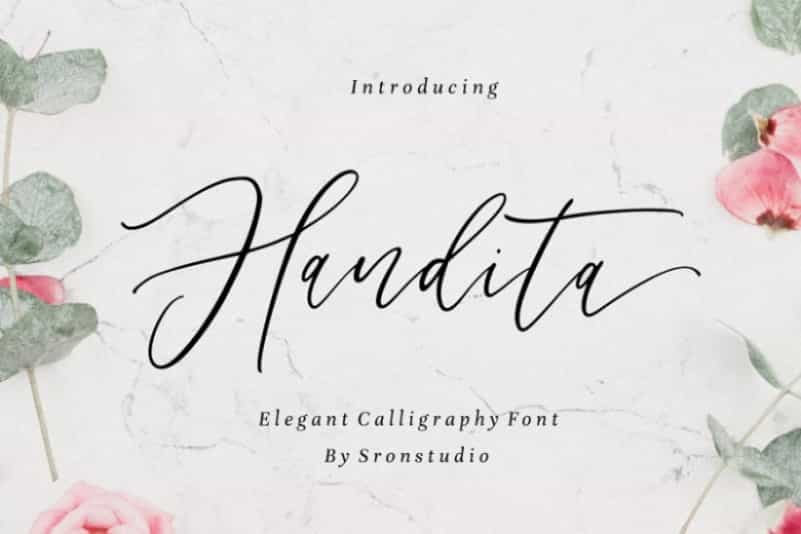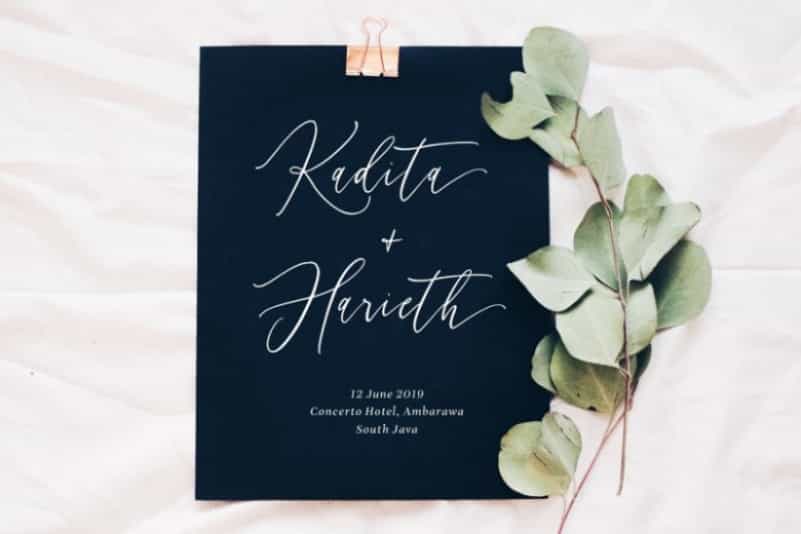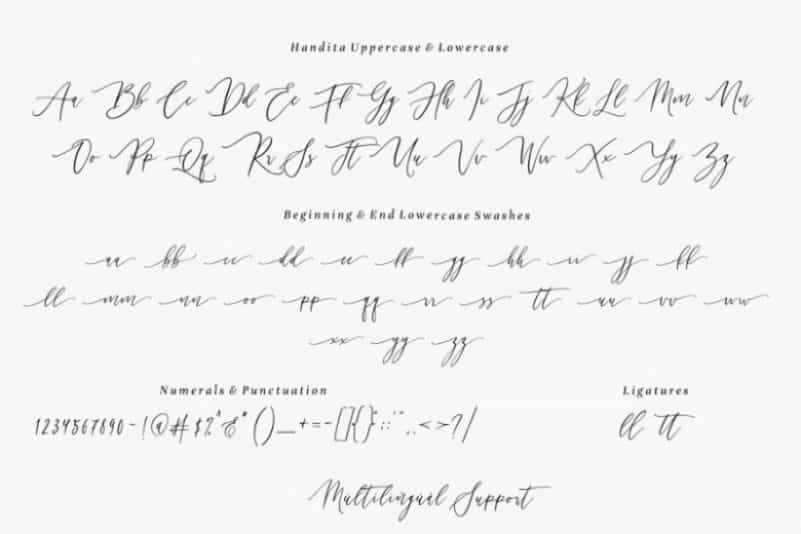
Discover Handita Calligraphy Font, part of the Calligraphy Handwritten collection—a versatile and unique font perfect for adding a personal touch to your projects. Download it for free and enjoy crafting designs with style, from invitations to social media posts. This font is available exclusively for personal use, giving you the freedom to create without limits. Unlock your creativity with Handita Calligraphy Font today!
Handita Font, meet the universe. Having a genuine handwritten look. Handita Calligraphy Font is a nice calligraphy font. This font is ideal for logos, invitations, stationery, wedding designs, social media posts, advertisements, product packaging and designings,t labels photography,w watermarks special events or anything.